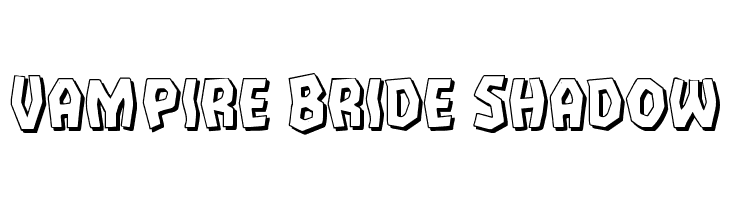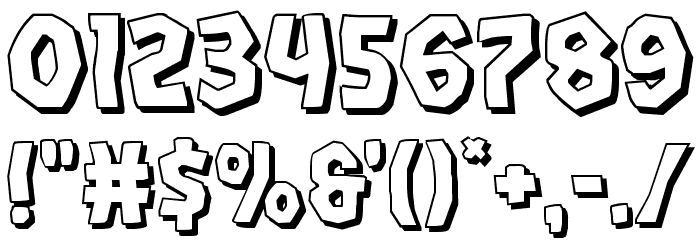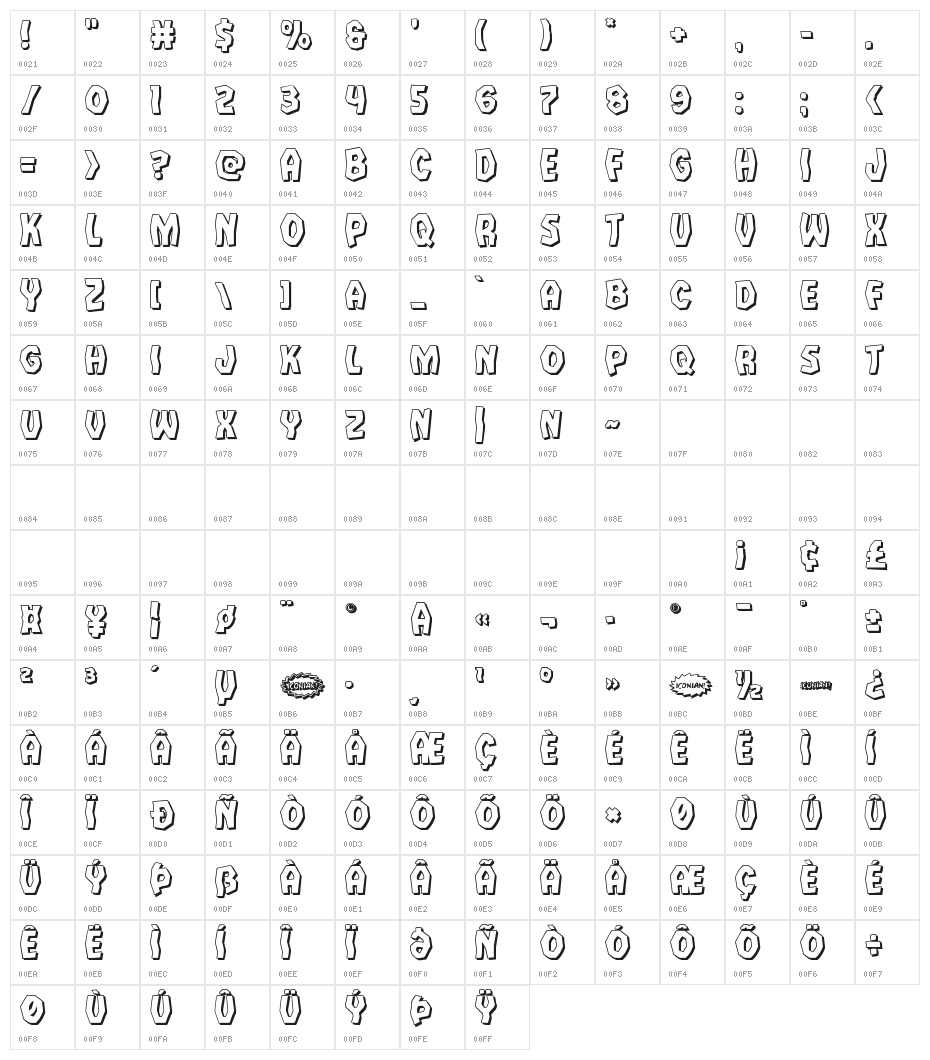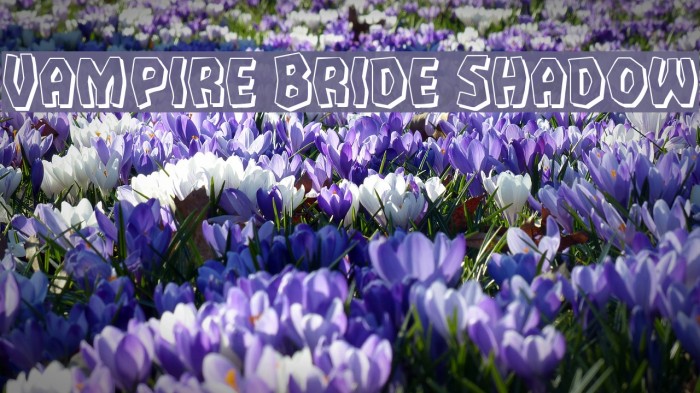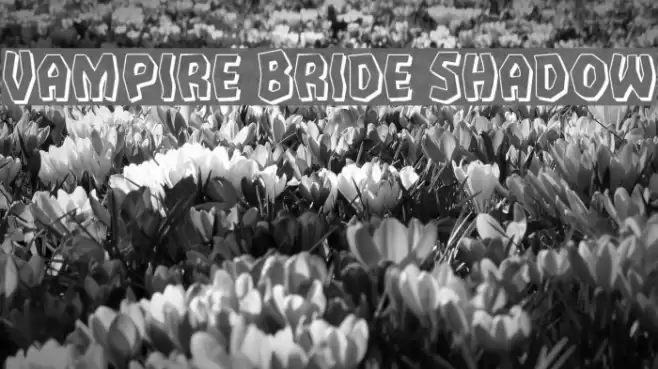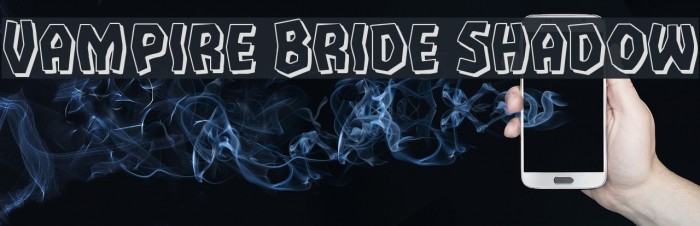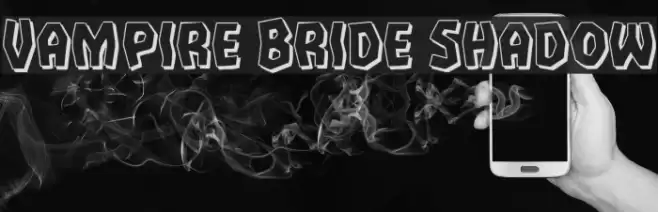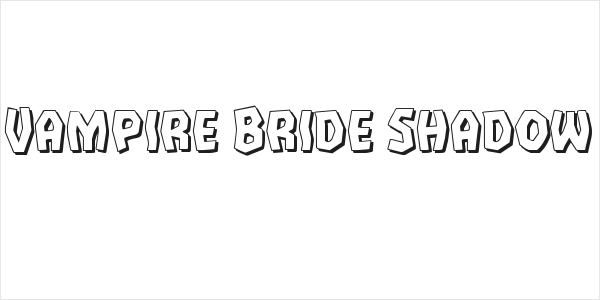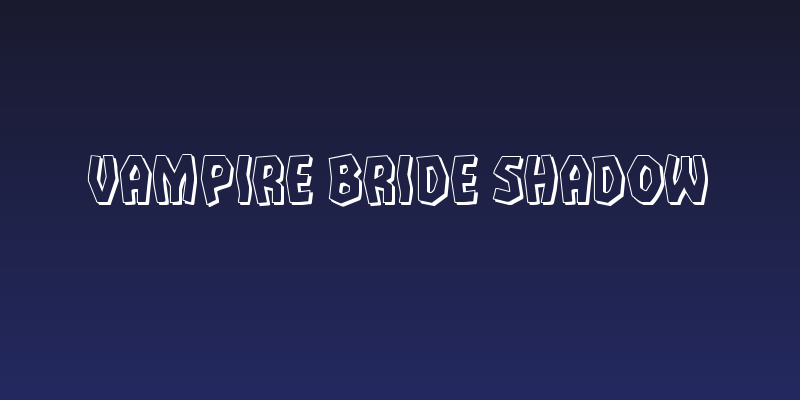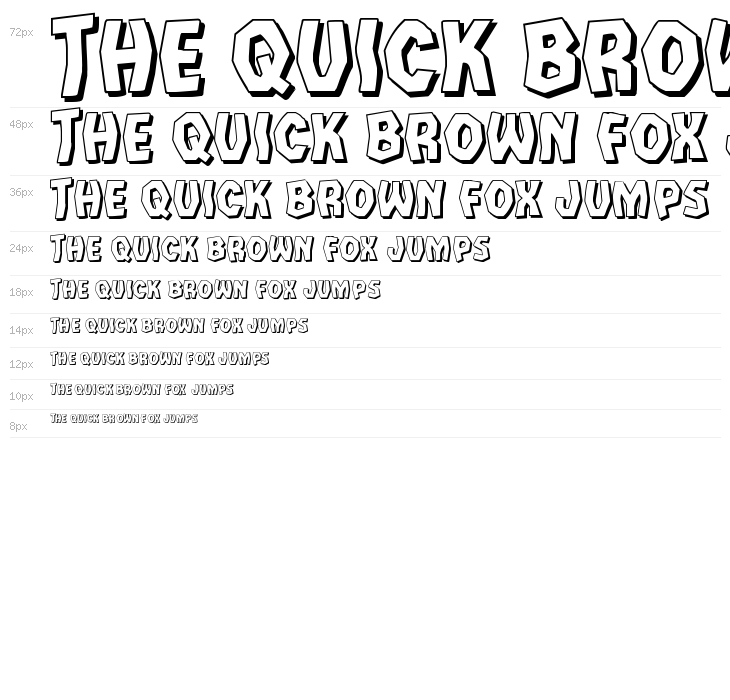
Vampire Bride Shadow Font
Vampire Bride Shadow Description
This font features a bold, playful style with a distinct shadow effect that gives each character a three-dimensional appearance. The letters are uppercase and lowercase, with numbers and a variety of special characters included. The design is characterized by thick, uniform strokes and a cartoonish, hand-drawn feel. The shadow adds depth and a sense of movement, making it stand out in any design. The characters are well-spaced, ensuring readability while maintaining a fun and dynamic look. This font is perfect for projects that require a lively and engaging typeface.
| Overall Style | Playful, Cartoonish |
| Proposed Projects | Ideal for comic books, children's book covers, posters, and playful branding. |